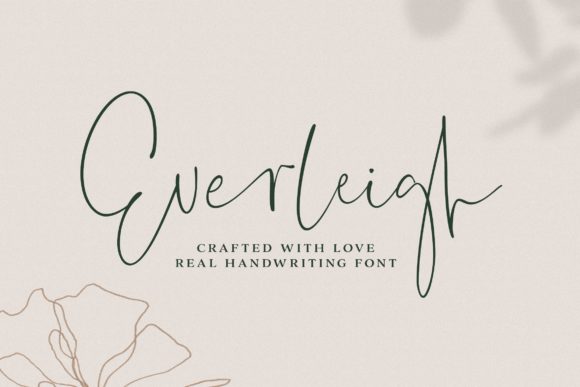
Introducing Everleigh Script, the enchanting handwritten font that brings a touch of timeless elegance to your creative projects. Its graceful strokes and charming details make it an ideal choice for creating captivating logos, branding, and quotes that leave a lasting impression.
With Everleigh Script, you'll have the power to transform ordinary designs into extraordinary masterpieces. Each letter is meticulously crafted with a unique and beautiful touch, adding a personal and heartfelt feel to your work. Whether you're a seasoned designer or just starting out, Everleigh Script is the perfect tool to elevate your designs and make them truly shine.
Step into a world of creativity and let Everleigh Script guide you. Its versatility knows no bounds, from elegant wedding invitations to whimsical social media posts, it effortlessly adapts to any project you throw its way. Express yourself authentically and create designs that resonate with your audience, leaving them captivated and inspired.
Don't settle for ordinary fonts that blend into the background. Choose Everleigh Script and watch your designs come alive with personality and charm. Its timeless beauty will ensure that your creations stand the test of time, leaving a lasting legacy of elegance and sophistication. Join the creative revolution and embark on a journey of self-expression with Everleigh Script.